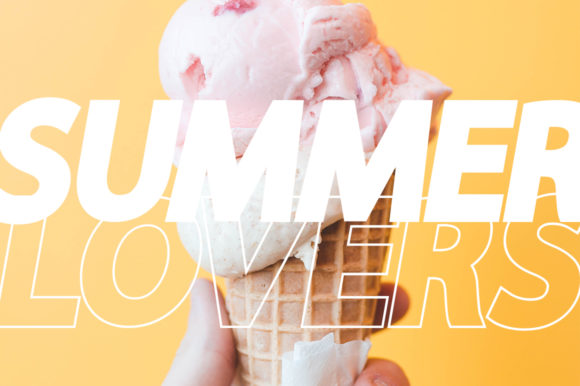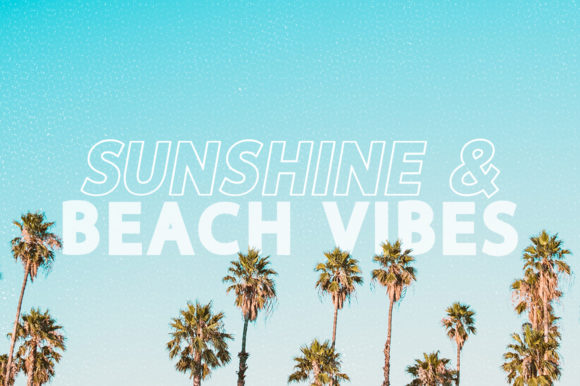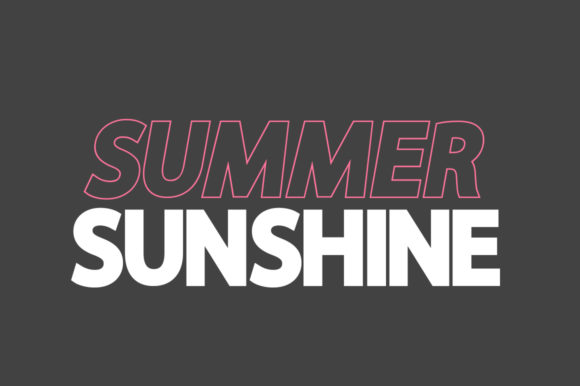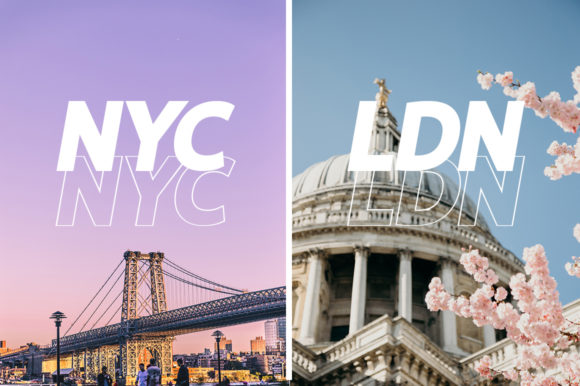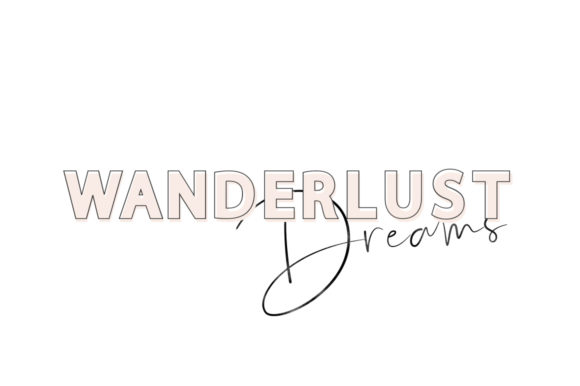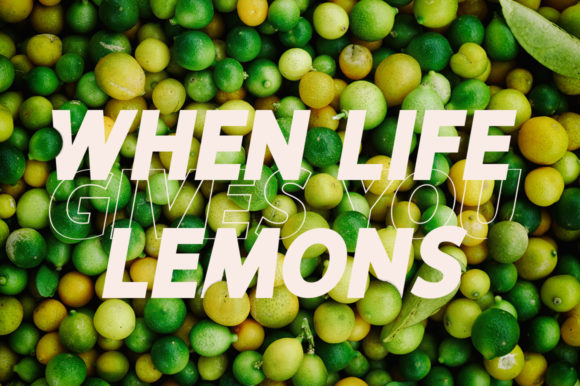
The Dustin Family Font: Elevate Your Designs with 4 Unique Styles
Are you tired of using the same old fonts in your design projects? Look no further than the Dustin Family Font, a stunning font family that includes 4 unique styles to add energy and character to your creations. In this article, we’ll dive into the world of the Dustin Font Family, exploring its features, benefits, and uses, and why it’s a must-have for designers and crafters.
What is the Dustin Family Font?
The Dustin Font Family is a carefully crafted collection of 4 distinct fonts, each with its own personality and flair. Whether you’re working on a branding project, a website design, or a crafting project, this font family has got you covered. With its versatile styles, you can use it for a wide range of applications, from headings and titles to body text and more.
Key Features of the Dustin Family Font
• 4 Unique Styles: The Dustin Font Family includes 4 distinct fonts, each with its own character and charm. From bold and modern to elegant and refined, there’s a style to suit every design need.
• High-Quality Design: The fonts in the Dustin Family are meticulously designed to ensure they are clear, legible, and visually appealing.
• Versatile: Use the Dustin Font Family for a variety of projects, including logos, branding, websites, social media graphics, and more.
• Easily Customizable: The fonts can be easily customized to fit your design requirements, allowing you to experiment with different styles and effects.
Benefits of Using the Dustin Family Font
So, why should you choose the Dustin Font Family for your design projects? Here are just a few benefits:
• Adds Energy and Character: The Dustin Font Family brings a fresh and exciting feel to your designs, helping you to stand out from the crowd.
• Enhances Readability: The fonts in this family are designed to be clear and legible, ensuring your message gets across effectively.
• Time-Saving: With 4 unique styles in one family, you can save time by having a range of options at your fingertips.
Who Can Benefit from the Dustin Family Font?
The Dustin Font Family is perfect for:
• Graphic Designers: Add a new level of creativity and versatility to your designs with this exciting font family.
• Web Designers: Use the Dustin Font Family to create visually appealing and user-friendly websites.
• Crafters: Bring a personal touch to your crafting projects, such as handmade cards, invitations, and DIY signs.
• Small Business Owners: Elevate your branding and marketing materials with a professional and stylish font.
How to Use the Dustin Family Font
Using the Dustin Font Family is easy:
2. Choose Your Style: Select the font style that best suits your project, from bold and modern to elegant and refined.
3. Experiment and Customize: Play around with different font sizes, colors, and effects to create a unique look.
4. Integrate into Your Design: Use the Dustin Font Family in your design project, whether it’s a logo, website, or crafting project.
Font Name Dustin Family Font
Author Salt and Pepper Fonts